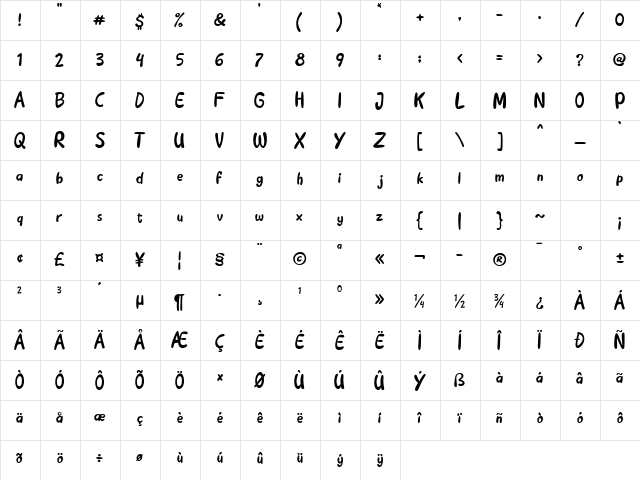
Happy Boy Regular
Design Context for Happy Boy Typeface
Happy Boy is a composed and adaptable typeface that performs quietly and consistently across a wide range of design contexts.